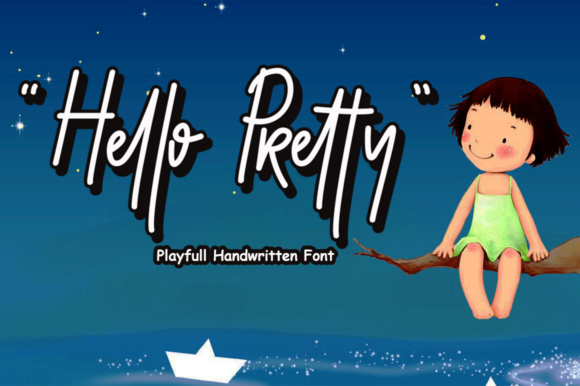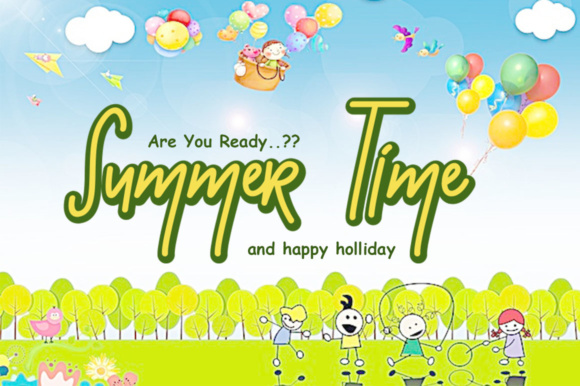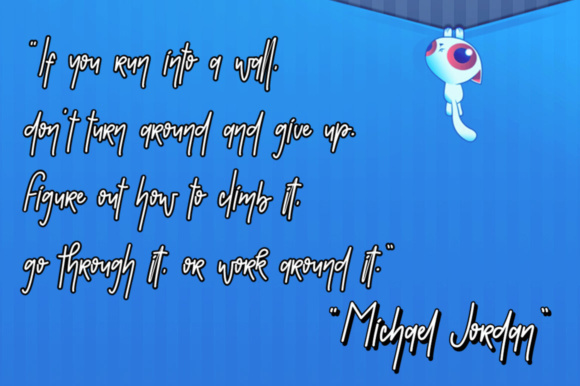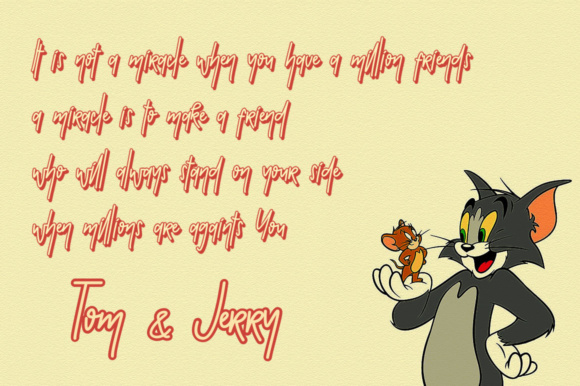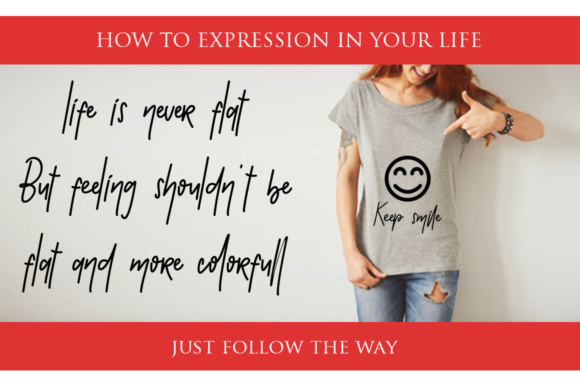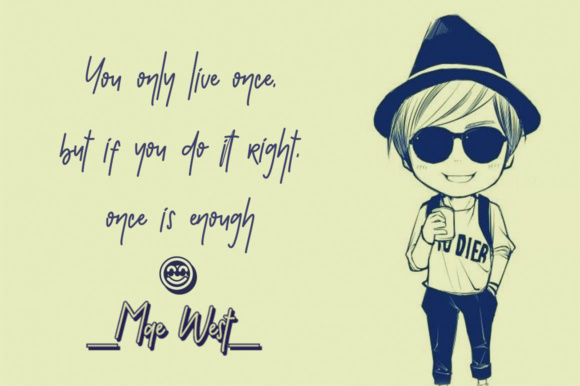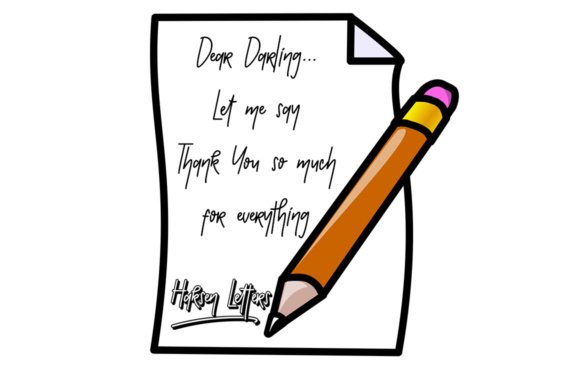
Hello There Font
About Hello There Font
“Hello There” is a font that is designed with a natural impression on every scratch. It has a handwritten style which makes it perfect for various designing needs.